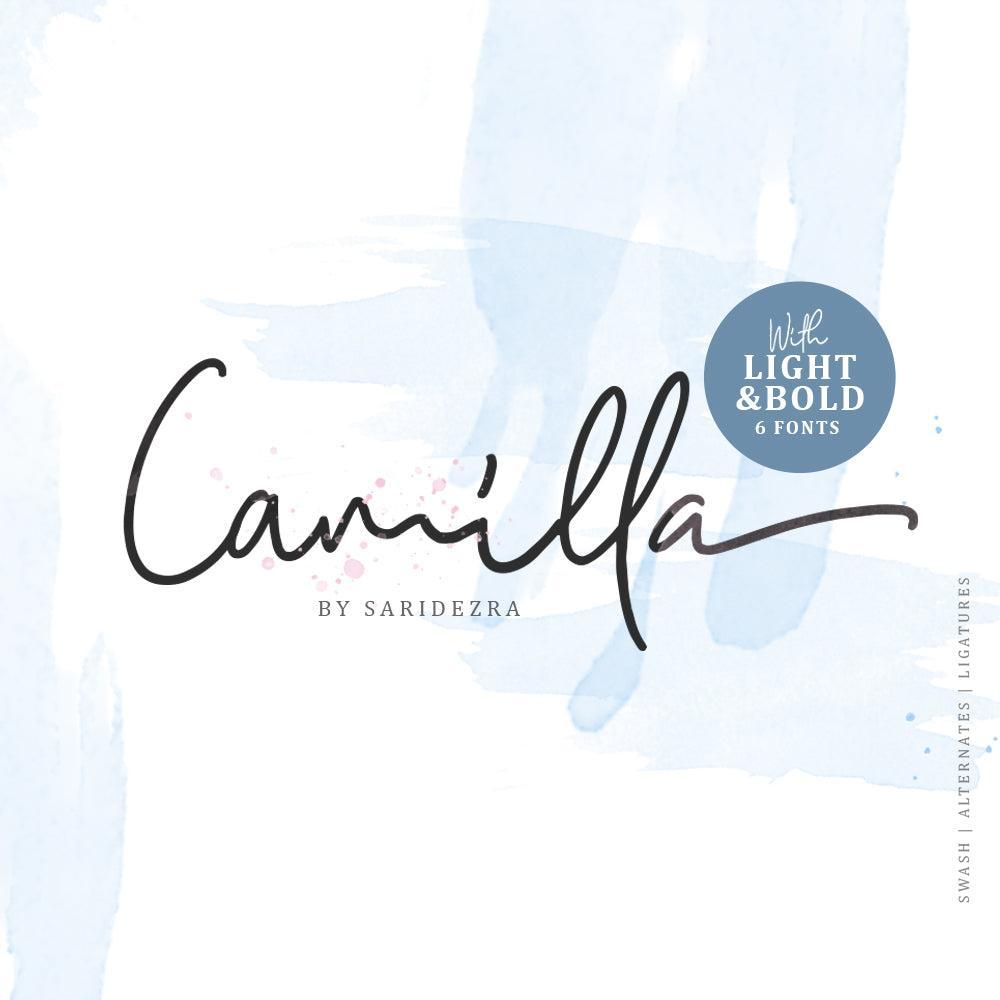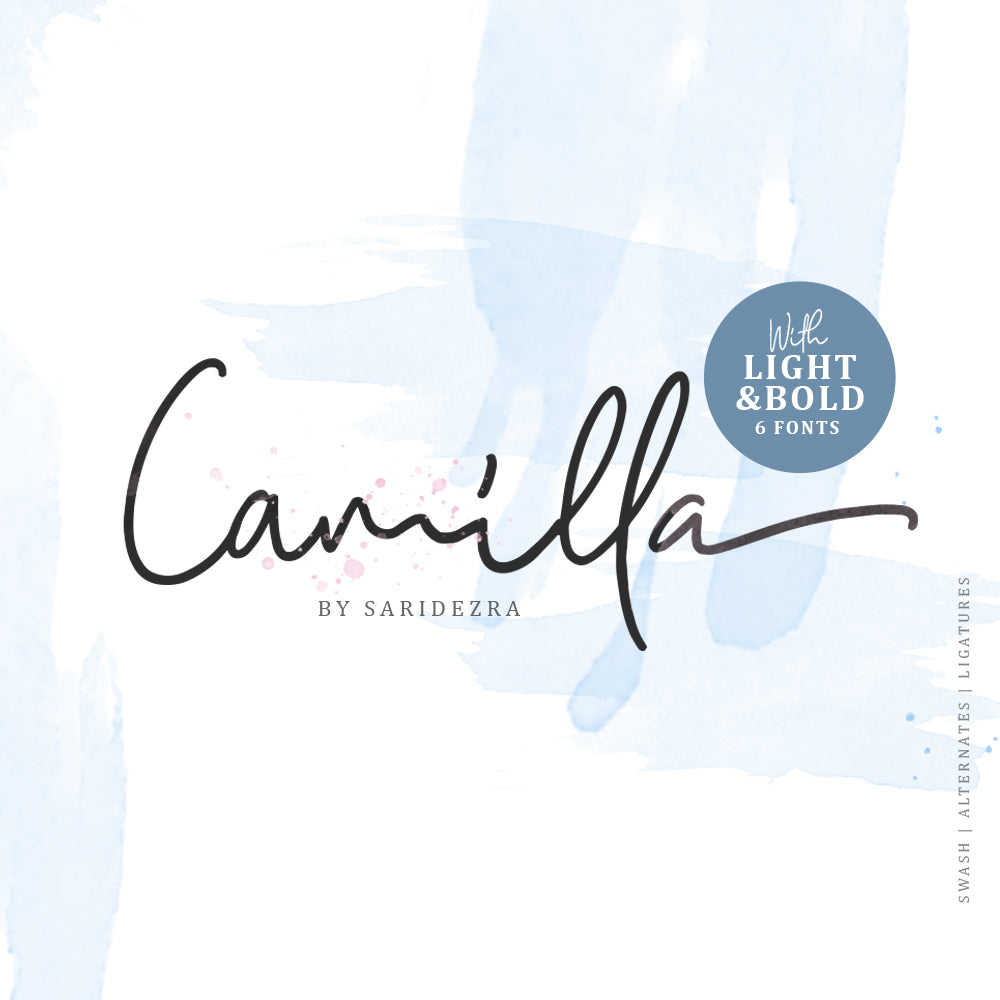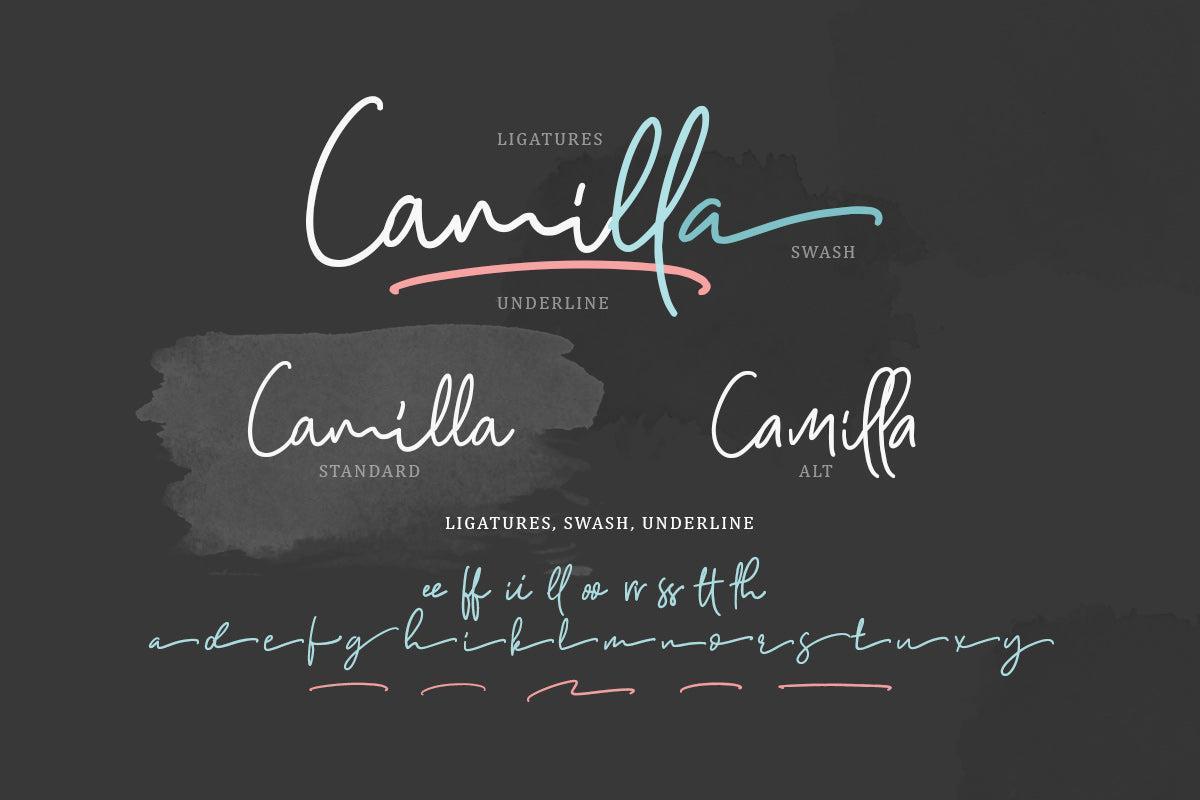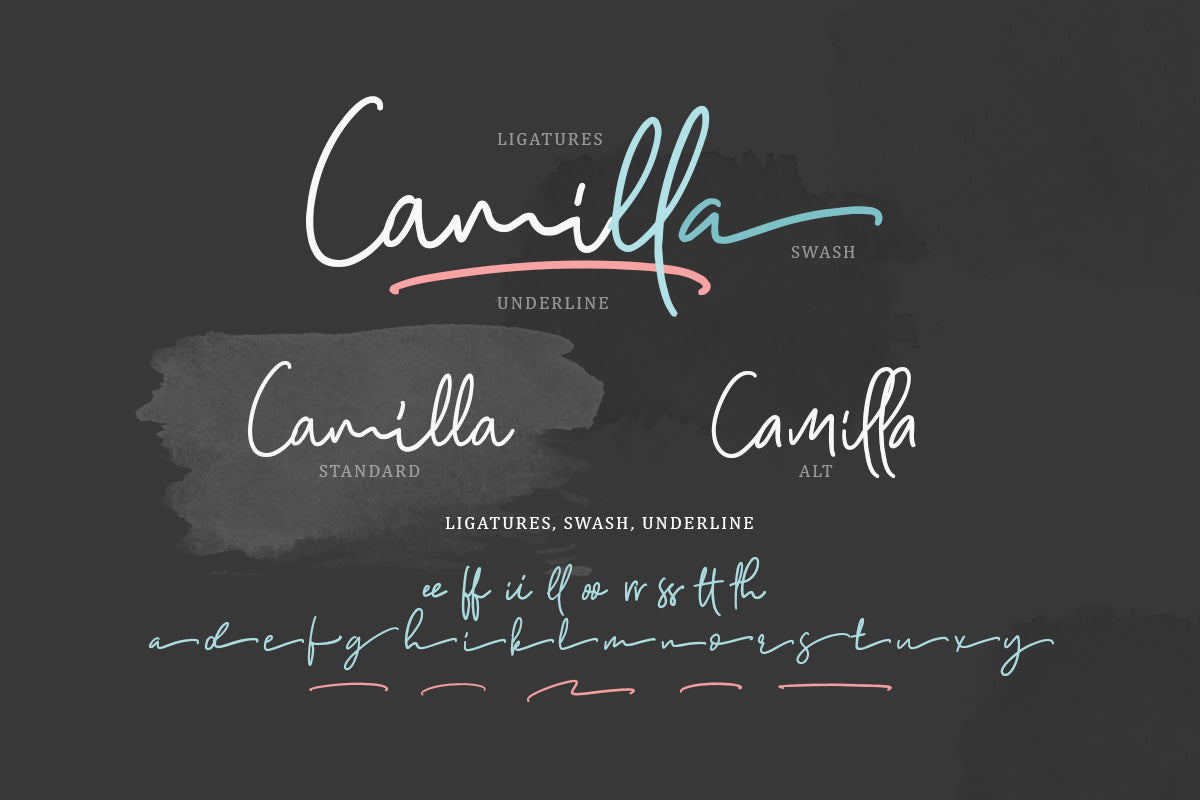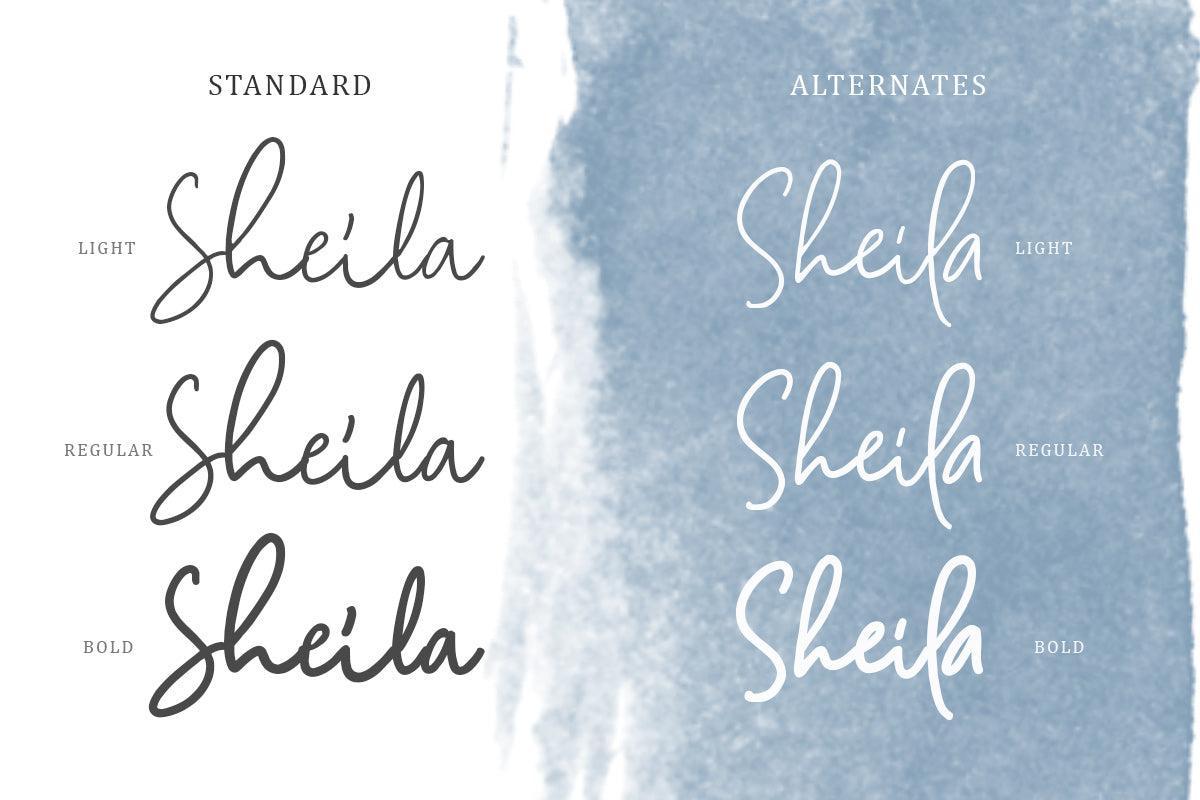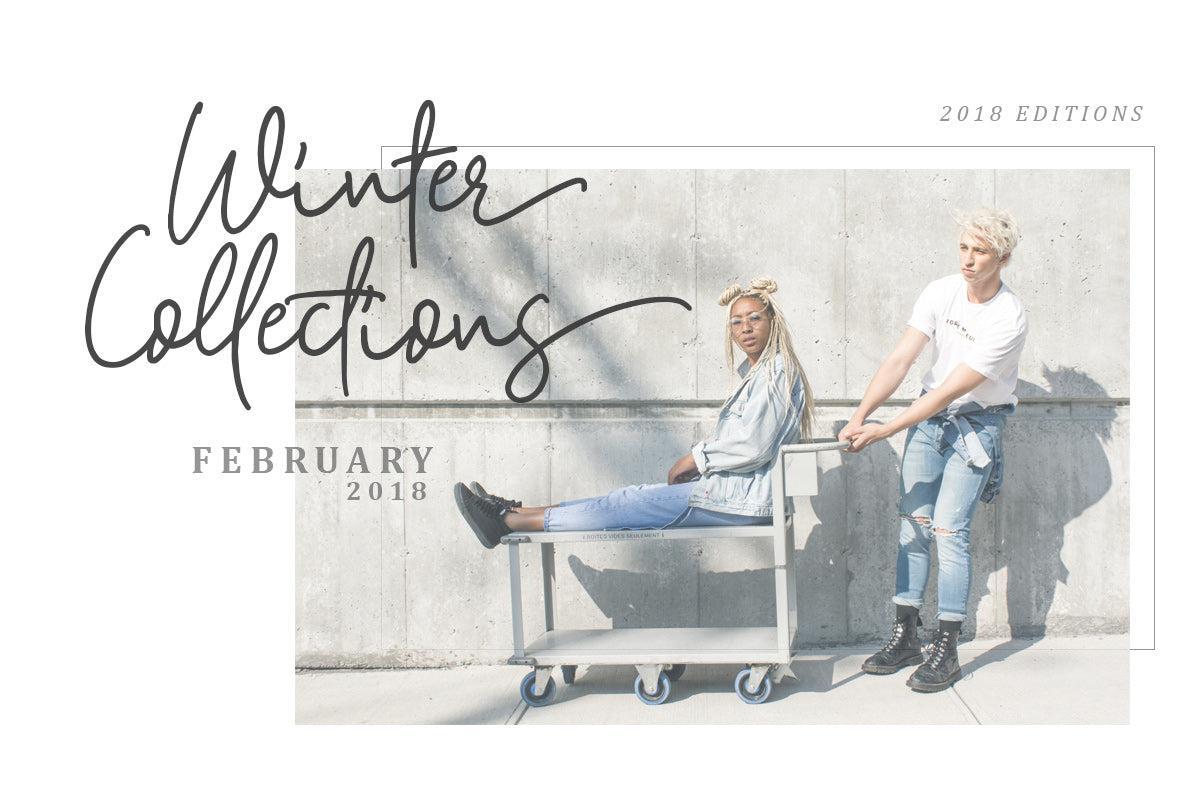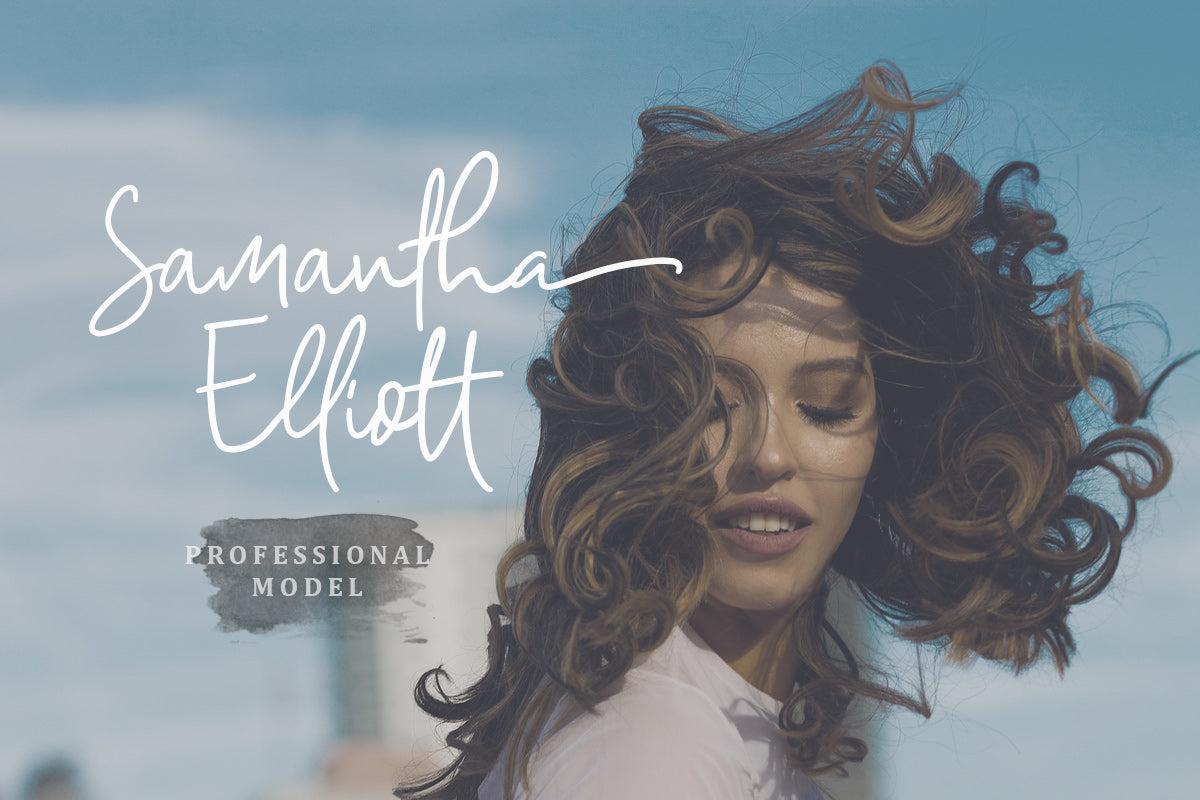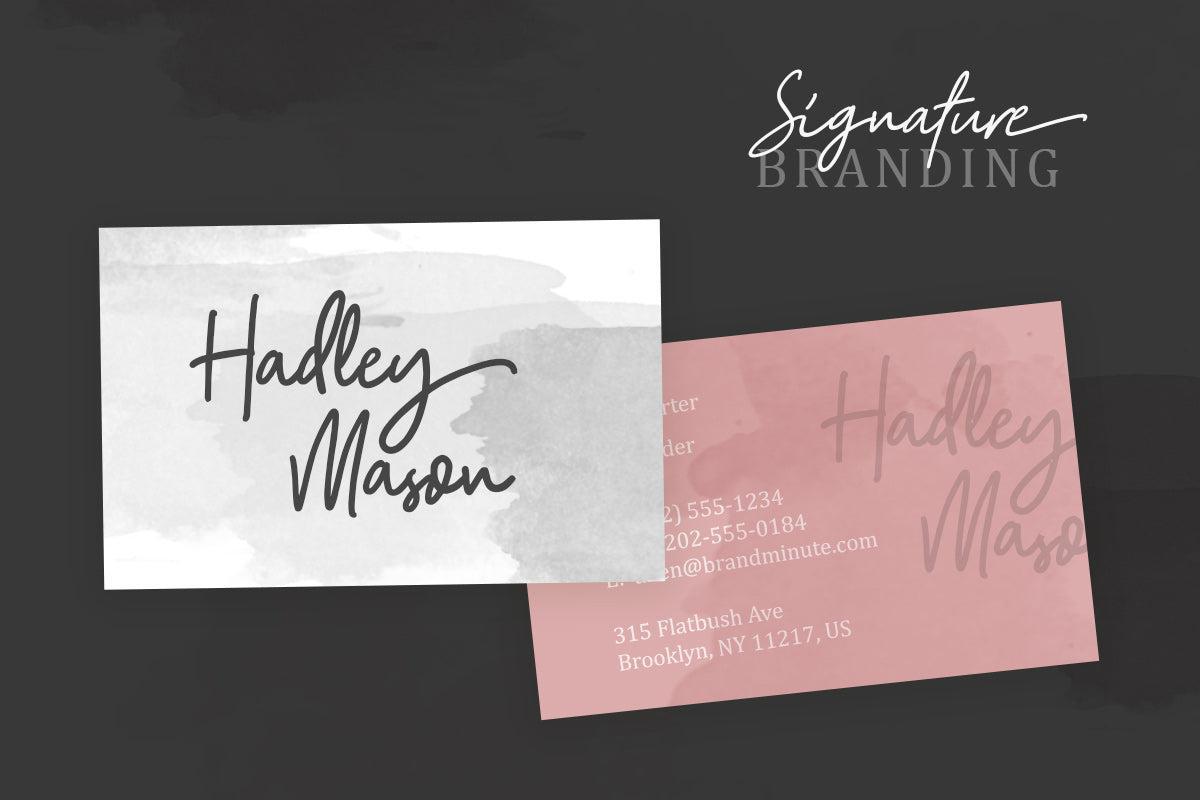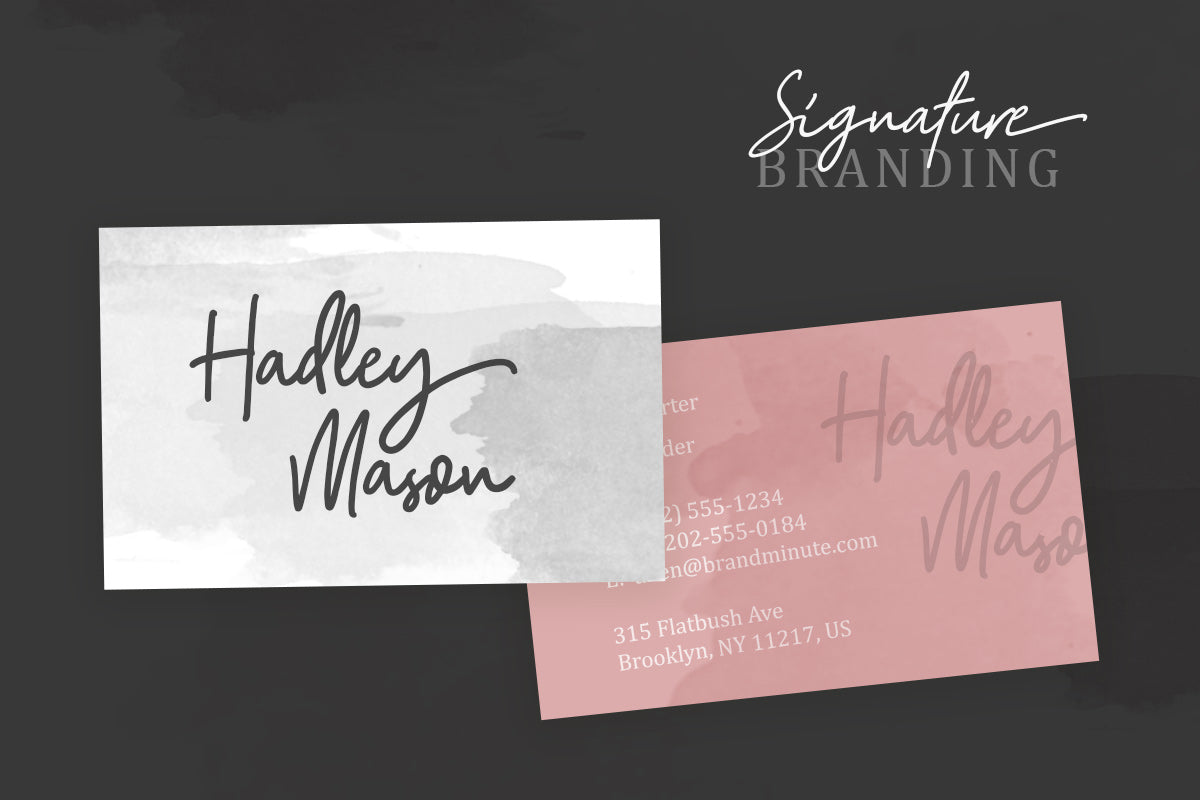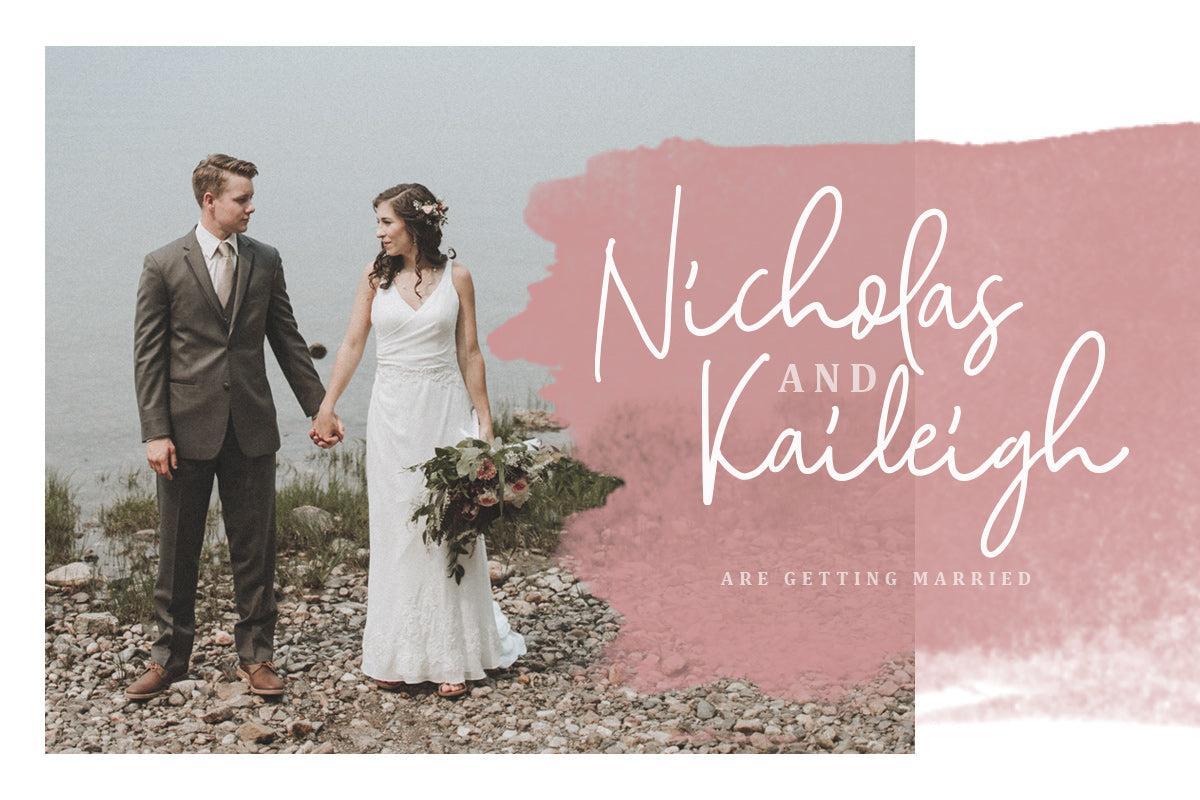
Camilla - Signature Script (6 Fonts)
The Camilla - Signature Script includes a family of 6 fonts featuring alternates, ligatures, swashes, and underlines. This PUA Encoded font set is designed for creating elegant handwritten text and logos.